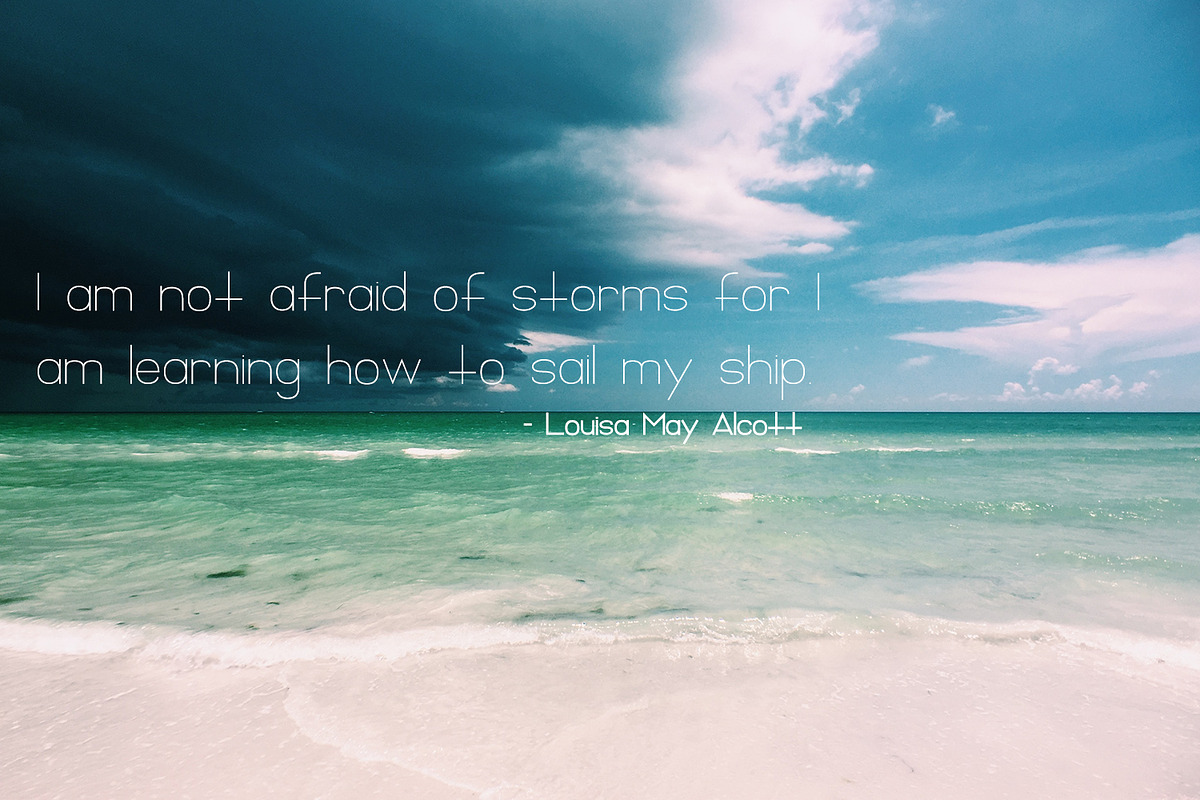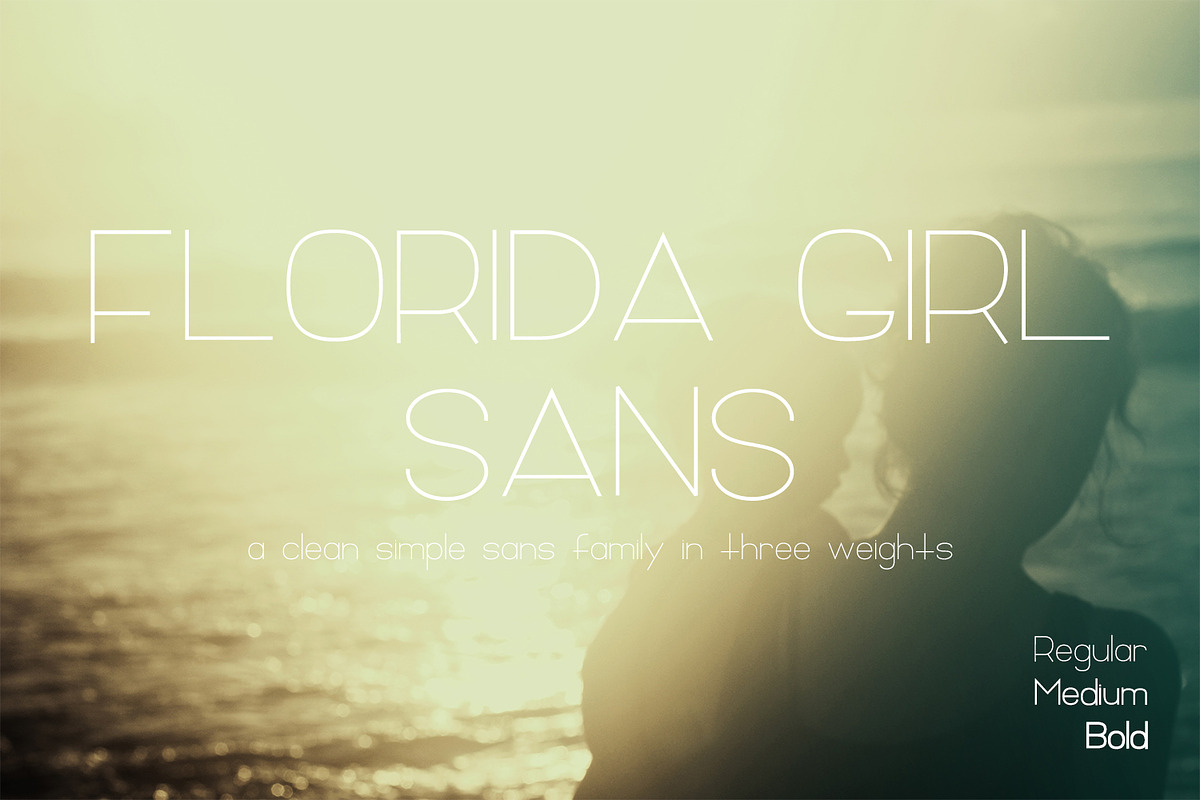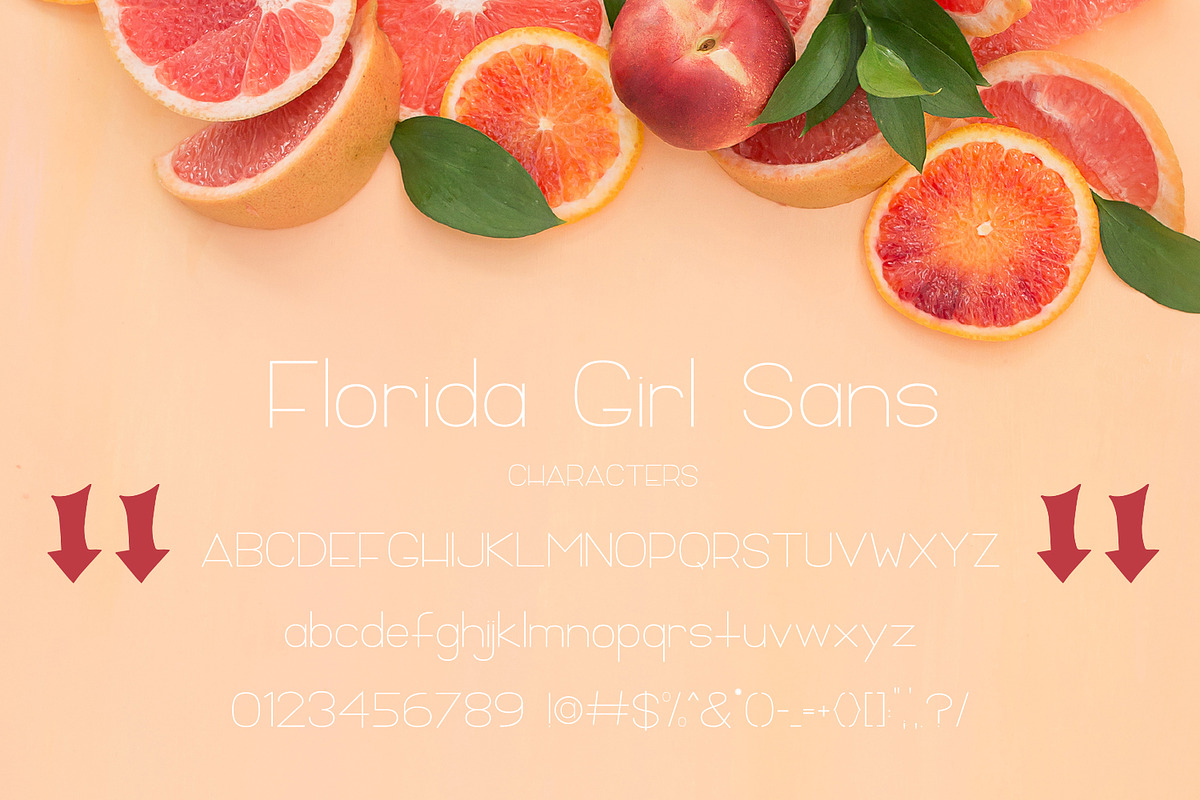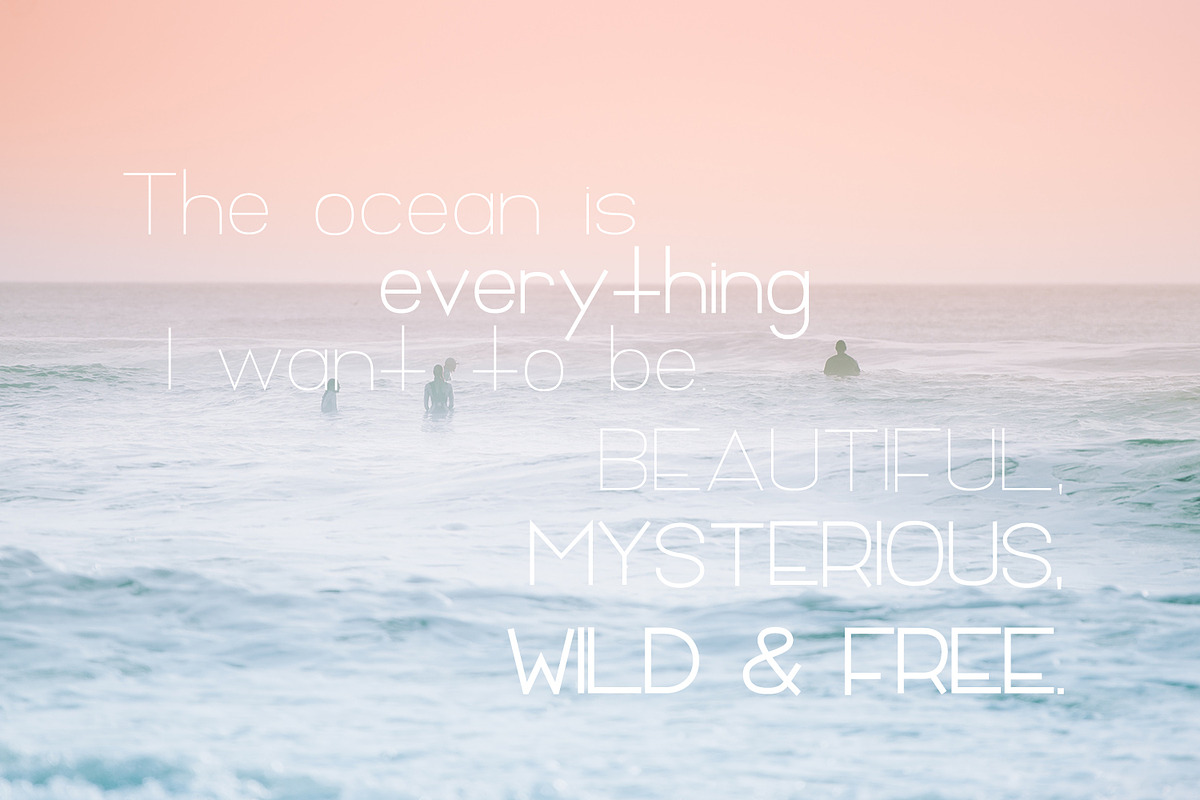
Florida Girl Sans
Florida Girl Sans is a crisp, simple, clean sans family that includes regular, medium, & bold weights.
Includes Western European language support for the following characters: AÀÁÂÃÄÅCÇDÐEÈÉÊËIÌÍÎÏNÑOØÒÓÔÕÖUÙÜÚÛWẂŴẄẀYÝŸỲŸÆŒßÞþ